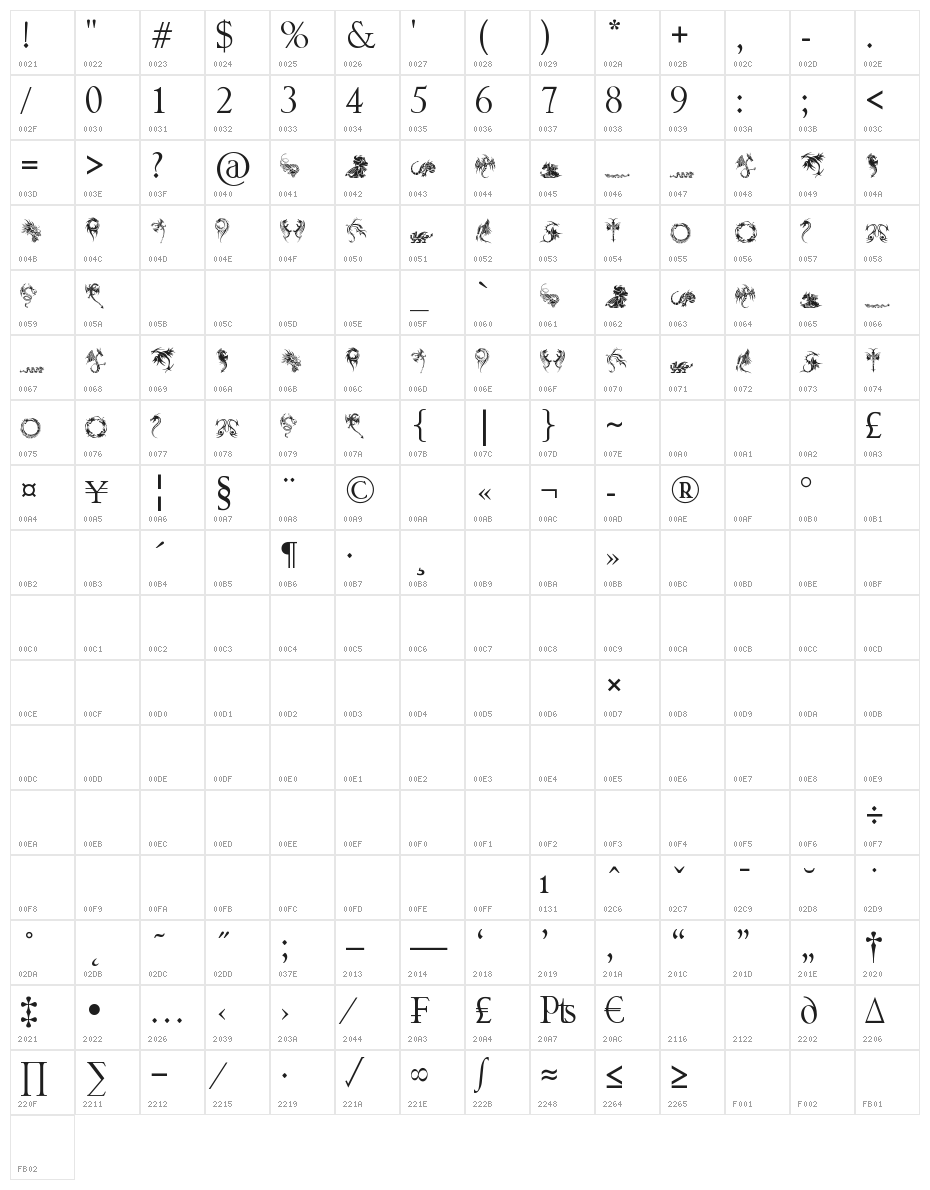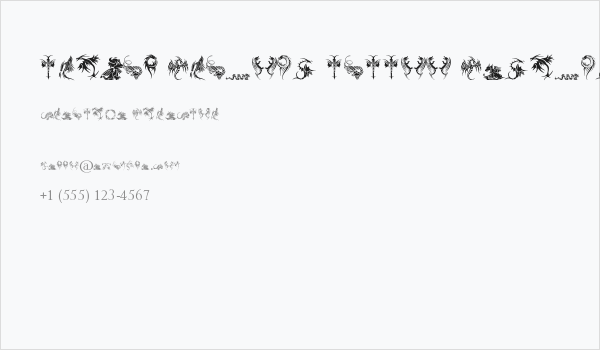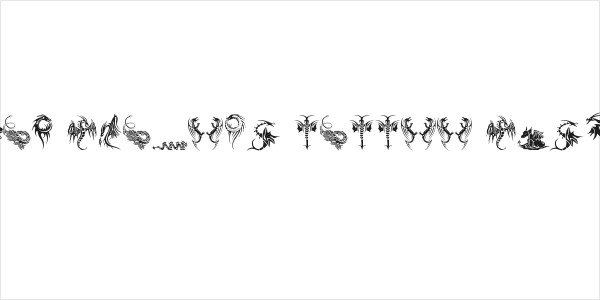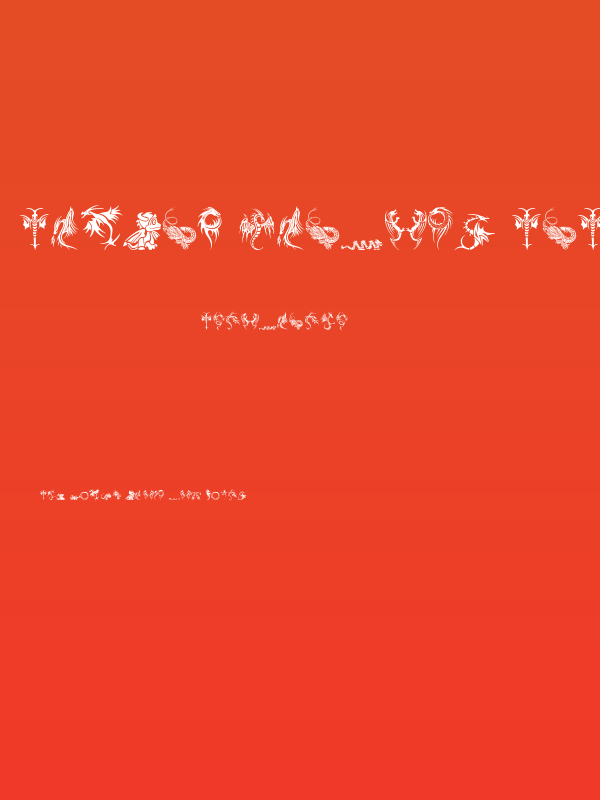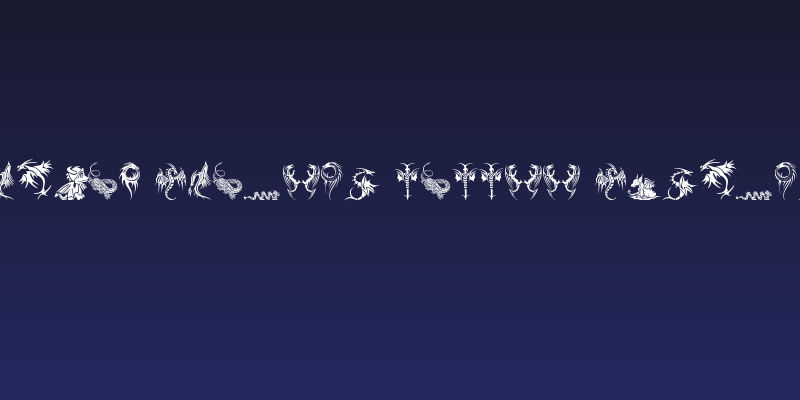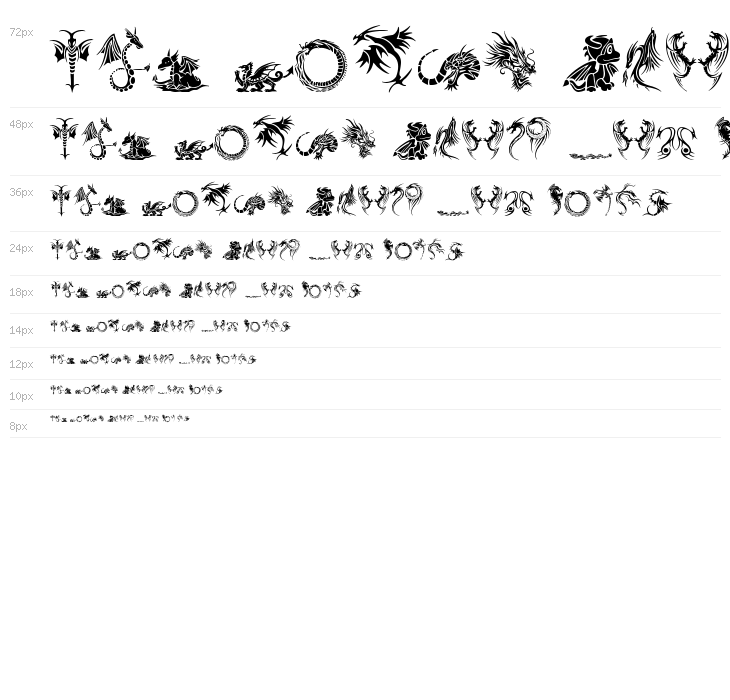
Tribal Dragons Tattoo Designs Font
Tribal Dragons Tattoo Designs Description
This design set features intricate tribal dragon motifs, each character crafted with elaborate details that evoke a sense of mysticism and power. The dragons are depicted in various dynamic poses, with swirling tails and sharp claws, embodying a fierce and majestic aesthetic. The designs are highly decorative, making them ideal for tattoo art or any project requiring a bold, mythical theme. The characters are not uniform in size or style, emphasizing their unique, hand-drawn appearance. The overall style is distinctly tribal, with a focus on bold lines and intricate patterns that create a striking visual impact.
Overall StyleTribal, Mythical, Decorative
Use CaseDecorative art, Tattoos, Fantasy themes
Proposed ProjectsIdeal for tattoo designs, fantasy-themed artwork, or decorative projects requiring a mythical aesthetic.